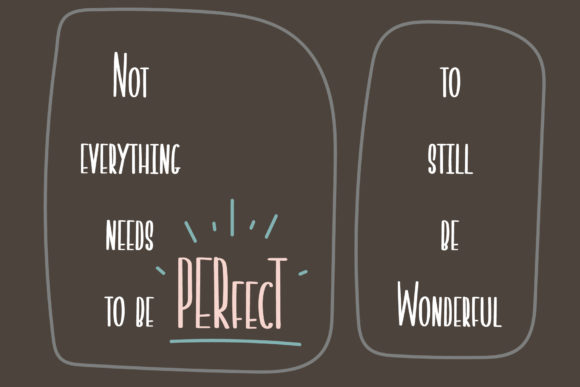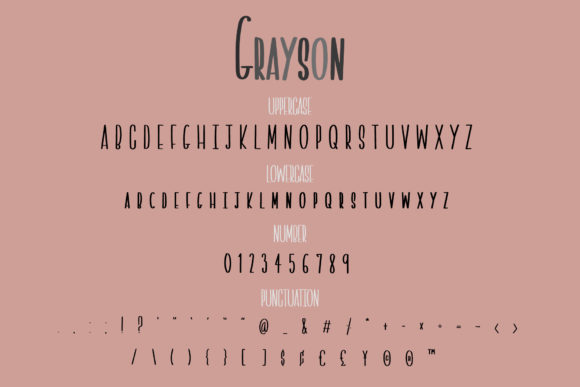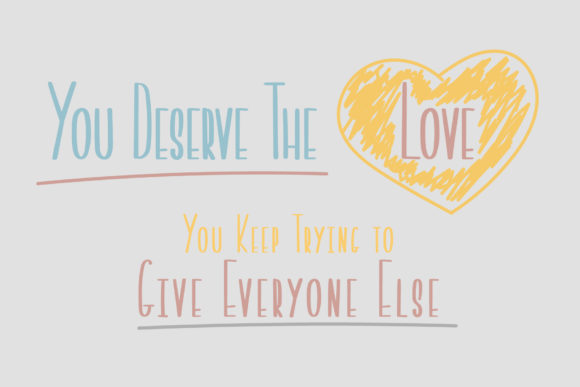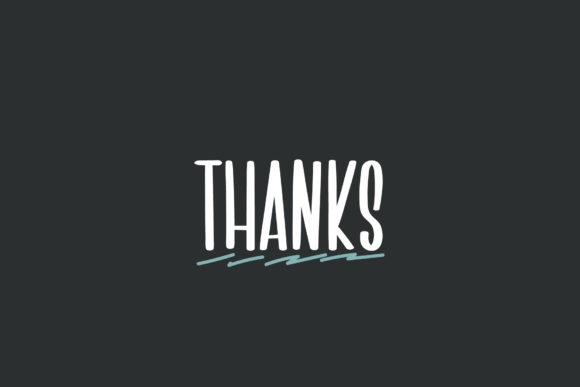
Grayson Font: The Friendly and Quirky Handwritten Font for Designers and Crafters
Are you looking for a font that can add a touch of warmth and friendliness to your designs? Look no further than the Grayson font. This cute and casual handwritten font is perfect for designers and crafters who want to create logos, branding, social media graphics, and DIY projects that stand out from the crowd. In this article, we’ll take a closer look at the Grayson font, its features, and how you can use it to elevate your designs.
What is Grayson Font?
Grayson is a modern handwritten font that exudes a friendly and approachable feel. It’s clean, yet quirky, making it perfect for designers who want to create unique and eye-catching designs. The font is designed to be versatile, making it suitable for a wide range of applications, from logos and branding to social media graphics and crafty DIY projects.
Key Features of Grayson Font
- Cute and Casual: Grayson font has a playful and informal feel that’s perfect for designers who want to create friendly and approachable designs.
- Clean and Quirky: The font has a clean and modern look, but with a quirky twist that sets it apart from more traditional fonts.
- Versatile: Grayson font is suitable for a wide range of applications, from logos and branding to social media graphics and DIY projects.
- Handwritten: The font has a handwritten feel that’s perfect for designers who want to add a personal touch to their designs.
How to Use Grayson Font in Your Designs
Grayson font is perfect for designers and crafters who want to create unique and eye-catching designs. Here are some ideas on how to use Grayson font in your designs:
- Logos and Branding: Use Grayson font to create a friendly and approachable logo that reflects your brand’s personality.
- Social Media Graphics: Use Grayson font to create eye-catching social media graphics that stand out from the crowd.
- DIY Projects: Use Grayson font to add a personal touch to your crafty DIY projects, such as handmade cards, gift tags, and more.
- Invitations and Party Decor: Use Grayson font to create custom invitations and party decor that sets the tone for a fun and festive celebration.
Tips for Pairing Grayson Font with Other Fonts
Pairing Grayson font with other fonts can help create a unique and visually appealing design. Here are some tips for pairing Grayson font with other fonts:
- Pair with a Serif Font: Pair Grayson font with a serif font, such as Times New Roman or Georgia, to create a classic and elegant look.
- Pair with a Script Font: Pair Grayson font with a script font, such as Pacifico or Great Vibes, to create a fun and playful look.
- Pair with a Bold Font: Pair Grayson font with a bold font, such as Arial Black or Impact, to create a striking and eye-catching design.
Grayson font is a versatile and friendly handwritten font that’s perfect for designers and crafters who want to create unique and eye-catching designs. With its clean and quirky feel, Grayson font is suitable for a wide range of applications, from logos and branding to social media graphics and DIY projects. Whether you’re a designer or crafter, Grayson font is a great addition to your font collection.